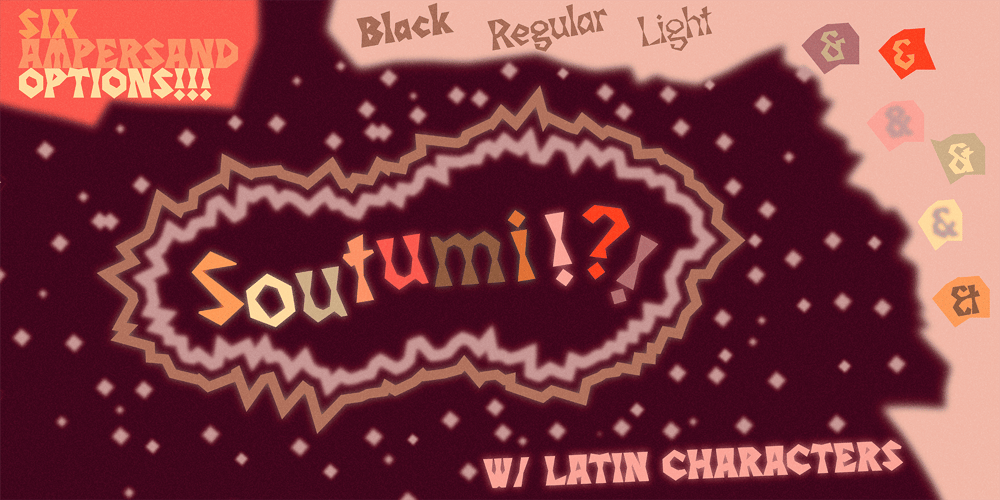
Soutumi
Soutumi font
Soutumi Font Family was designed by Caleb East and published by MYSTERIAN. Soutumi contains 3 styles and family package options. SOUTUMIFeatures: 6 Ampersand options per weight Extended Latin characters 2 Pi symbols Capital and lowercase ‘sharp S’ Loathing the time it took me to complete the family for my personal freelance identity, Multipolar (& the first font I ever authored myself), I vowed to take the challenge of working within considerable record time. Soutumi was conceived of this challenge; it’s vain purpose as such is more meaningful than the forms or any other semiotics that make up itself. Whereas Multipolar took me 9 months to complete, Soutumi was finished within the span of 3, and also sports three times more ampersand alternatives (as that theme was a running joke in Multipolar).